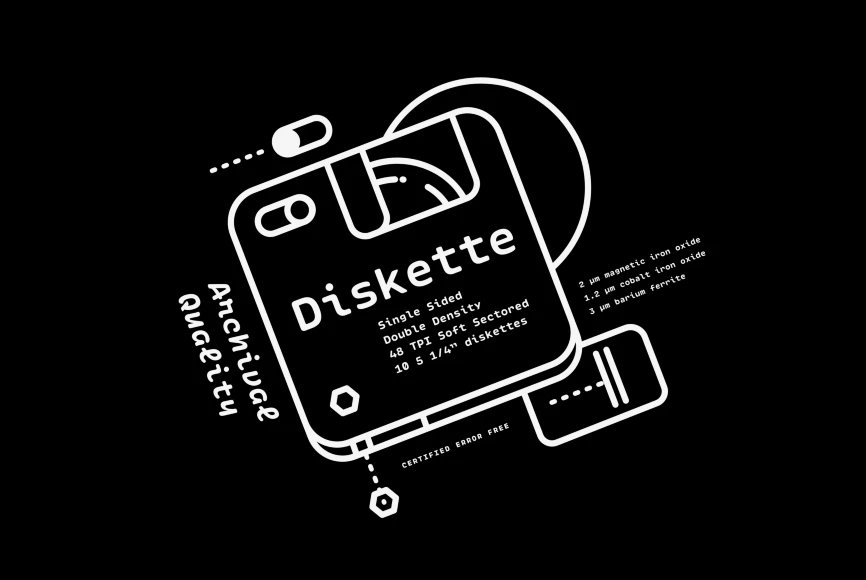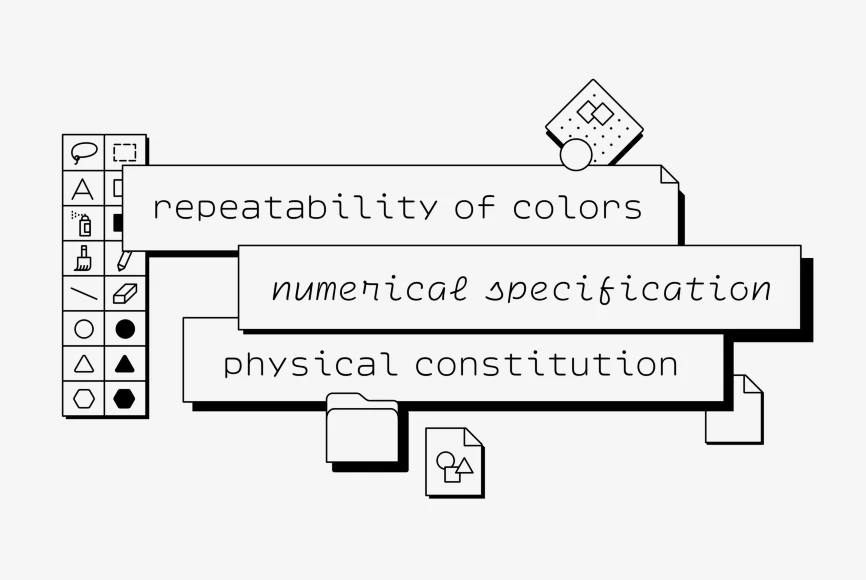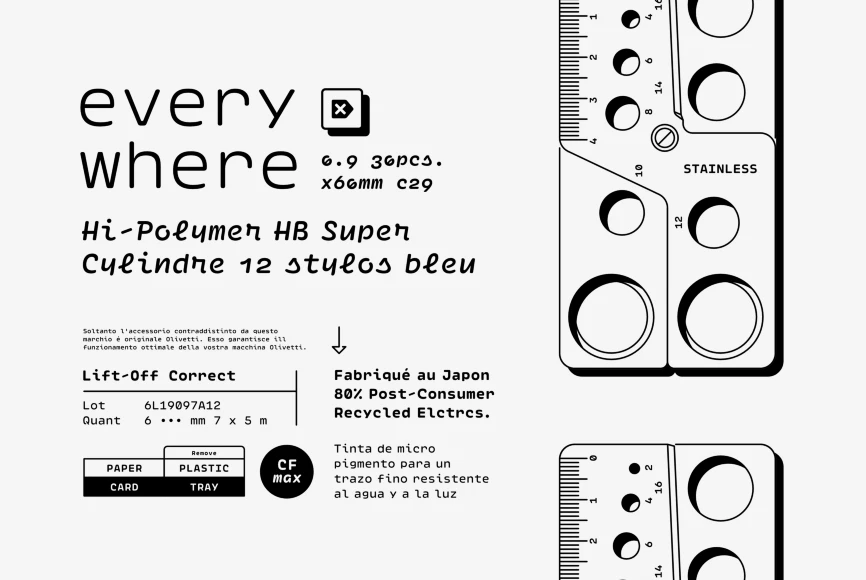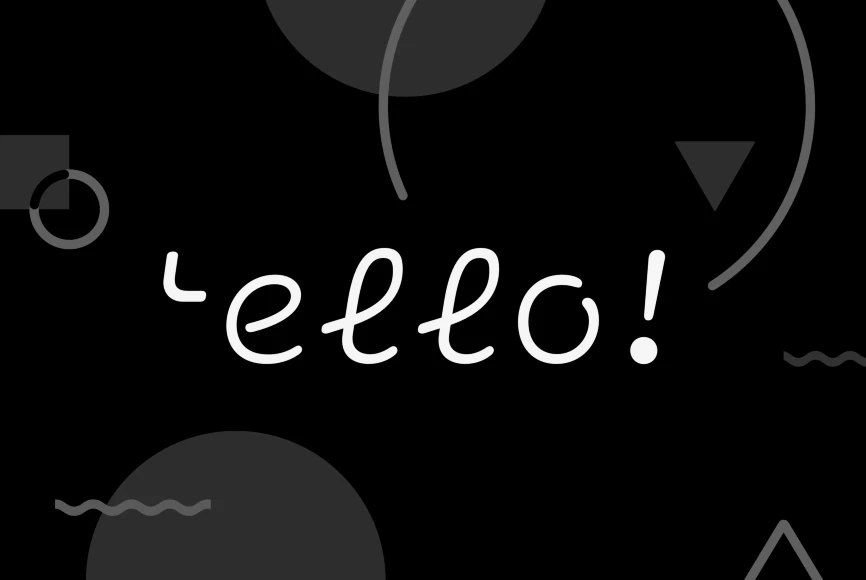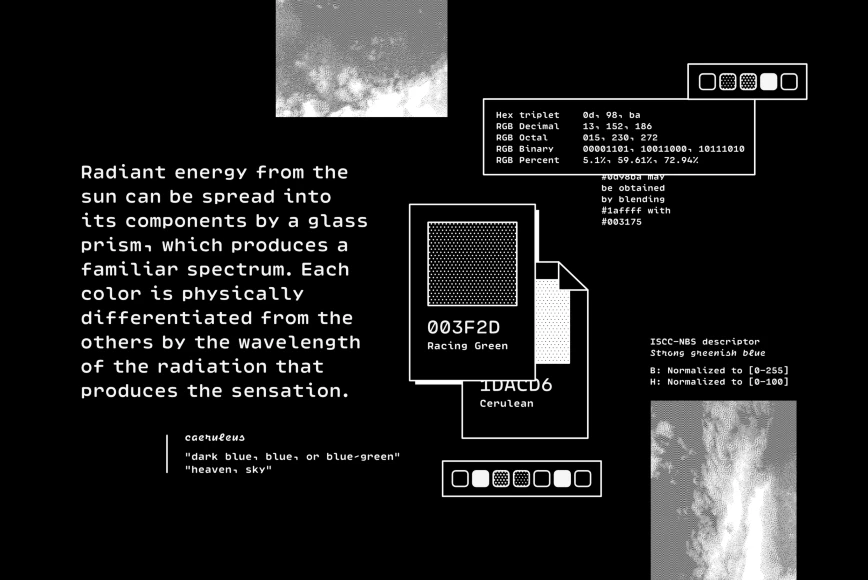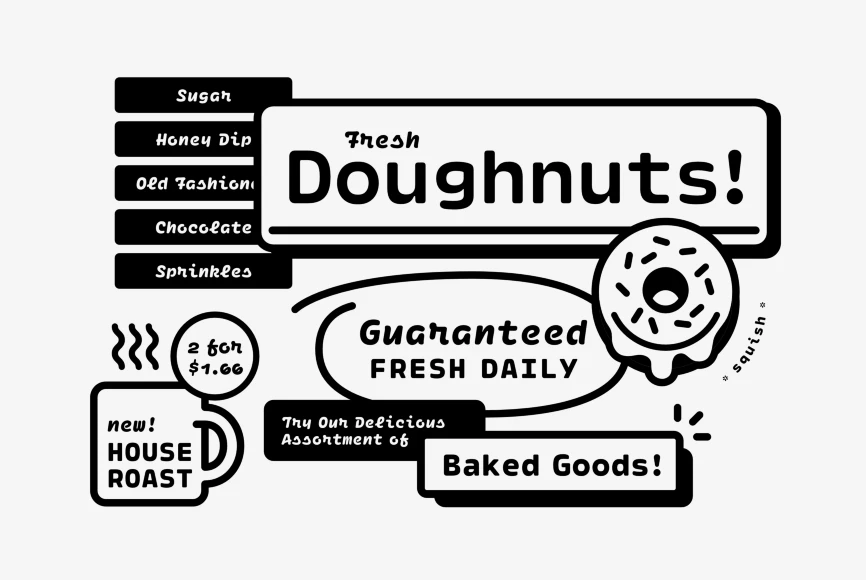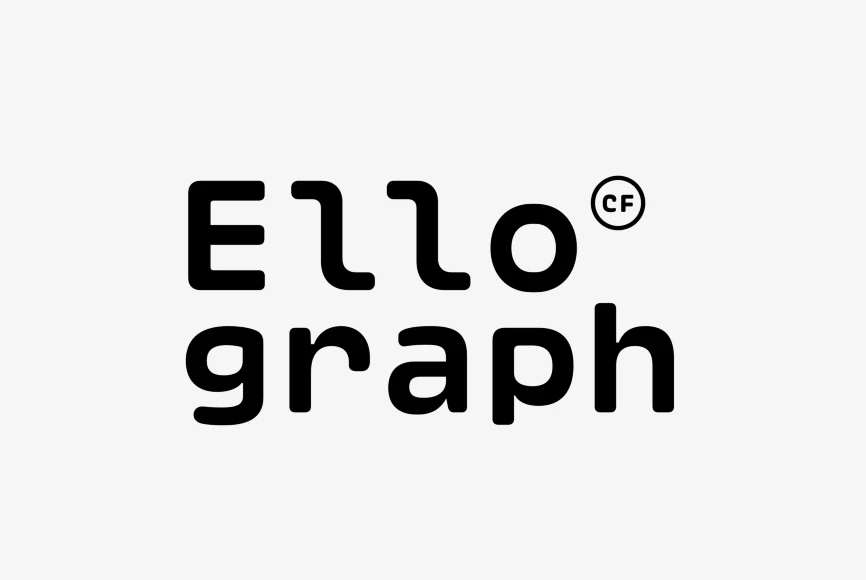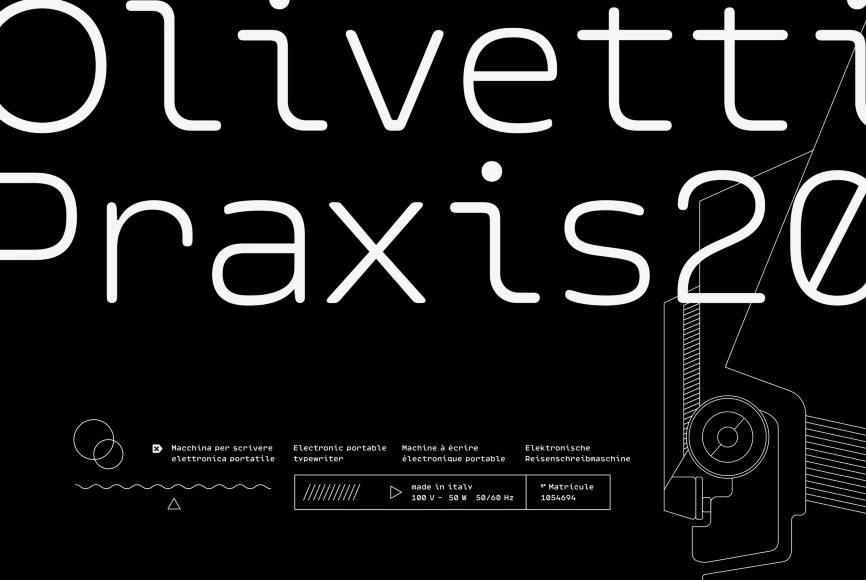
Ellograph
By Connary Fagen
Ellograph CF is a cheerful monospaced sans with a soft, rounded construction and striking cursive italics. A generous x-height and short descenders allow for even, flowing lines of text. It is a beautiful choice for a coding font. But for designers who like to think beyond the expected, it is also charming in logos, headlines, brands, online, and print.